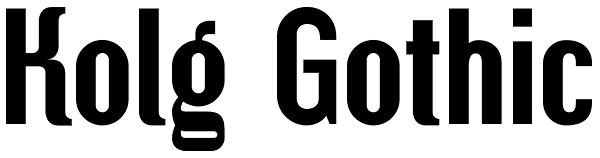
Kolg Gothic
Kolg Gothic is a highly stylized, condensed sans-serif typeface. Its design was heavily influenced by middle-eastern calligraphy and early sans-serif typefaces. Although fairly legible, this typeface was designed for use in headlines and small...
Kolg Gothic
Kolg Gothic Oblique